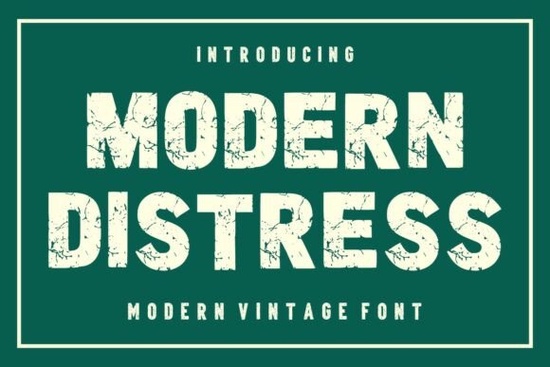
Modern Distress Font is a standout choice for designers and creators looking to add a vintage, rugged feel to their projects. This bold display font brings a sense of history and character, making it ideal for anything from logos to packaging. Its unique texture gives designs an aged look without sacrificing readability, which is essential for any project that needs to communicate clearly while standing out visually.
Whether you're working on a poster, a T-shirt design, or a branding campaign, Modern Distress offers a versatile solution. The font features uppercase characters, numbers, and punctuation, ensuring it works well in a variety of contexts. Its distressed texture mimics the look of weathered signs and old print materials, giving your work a nostalgic touch that feels authentic.
What Makes Modern Distress Unique?
Unlike many other fonts, Modern Distress combines a strong, modern structure with a vintage aesthetic. This blend makes it suitable for both contemporary and retro styles. The letterforms are designed to be easy to read, even at smaller sizes, while still maintaining that raw, aged appearance. This balance ensures that your designs remain professional and impactful.
The font’s texture adds depth and interest to any design. Cracked and weathered details create a sense of history, making it perfect for projects that aim to evoke a sense of timelessness. Whether you’re creating a logo for a coffee shop or designing a banner for a music festival, Modern Distress can help you achieve the right look.
Best Uses for Modern Distress
Designers often use Modern Distress for headlines, labels, and packaging. Its bold appearance makes it great for eye-catching graphics that need to grab attention. For example, it works well for sports branding, outdoor-themed designs, and vintage advertisements. The font also pairs well with other vintage-style elements, making it a valuable addition to any designer’s toolkit.
If you're running a print-on-demand business, this font can help you create unique products that stand out. It’s especially useful for apparel, badges, and product packaging. The combination of modern structure and distressed texture allows for creative flexibility, so you can experiment with different design approaches.
Remember, the right font can make a big difference in how your design is perceived. Modern Distress provides a strong, readable option with a unique texture that adds personality and visual interest. Whether you're a designer, crafter, or small business owner, this font can help you create memorable visuals that resonate with your audience.